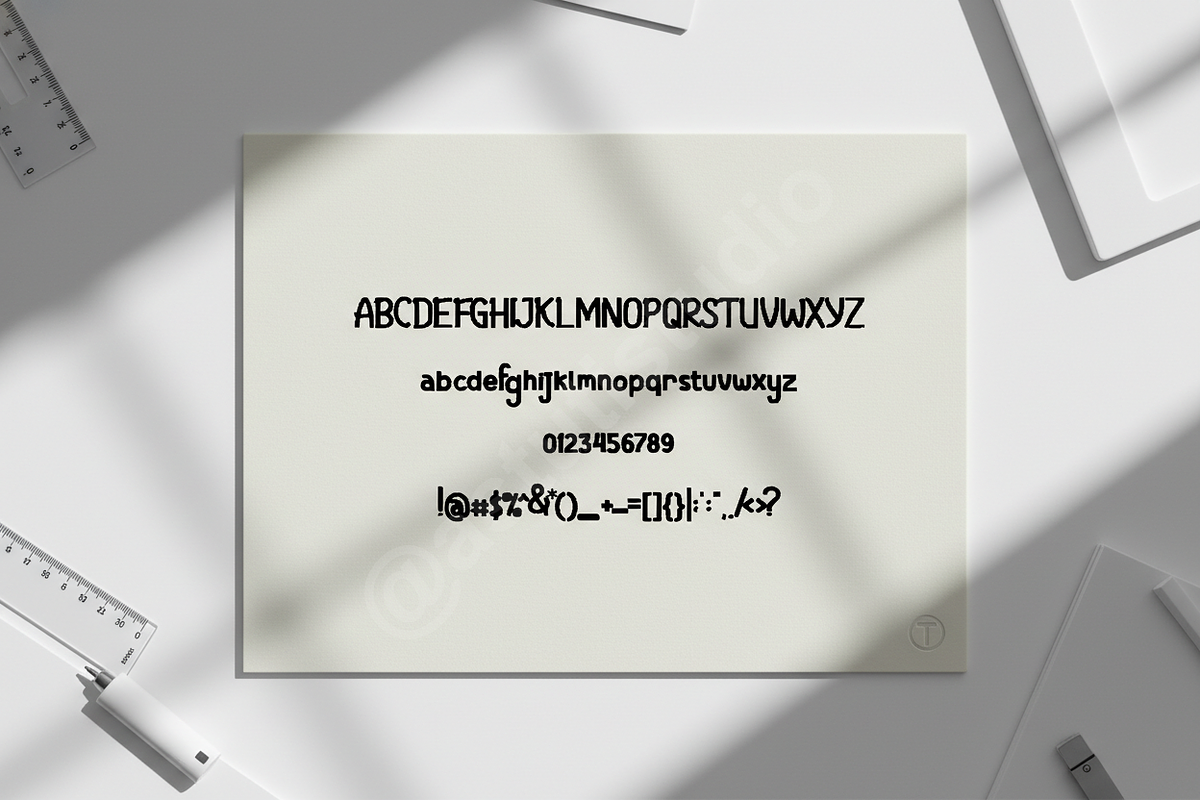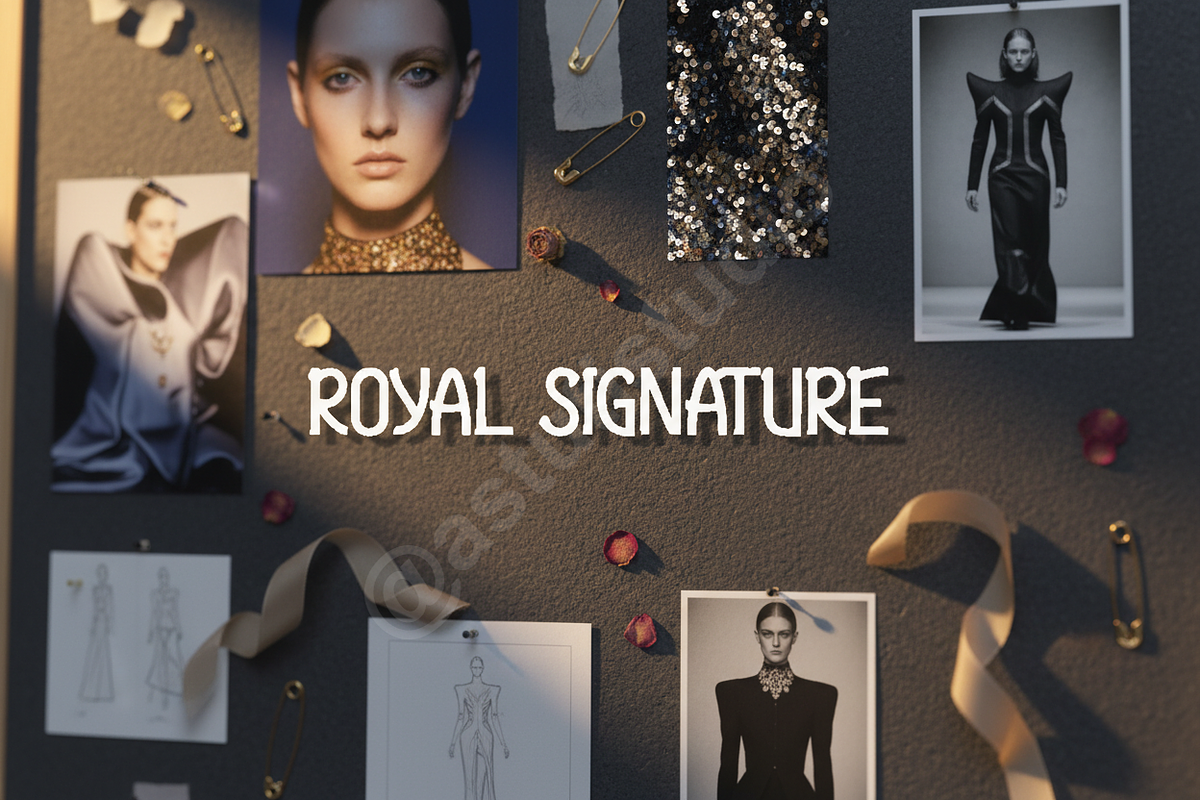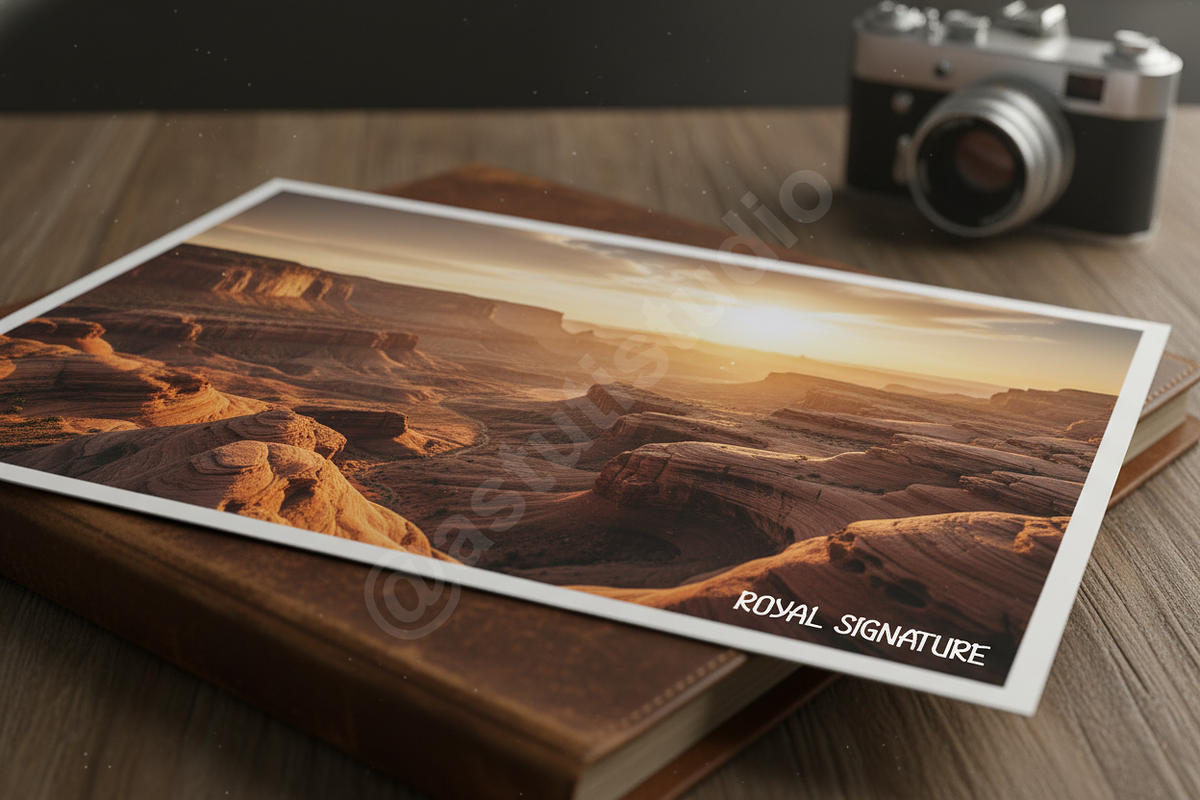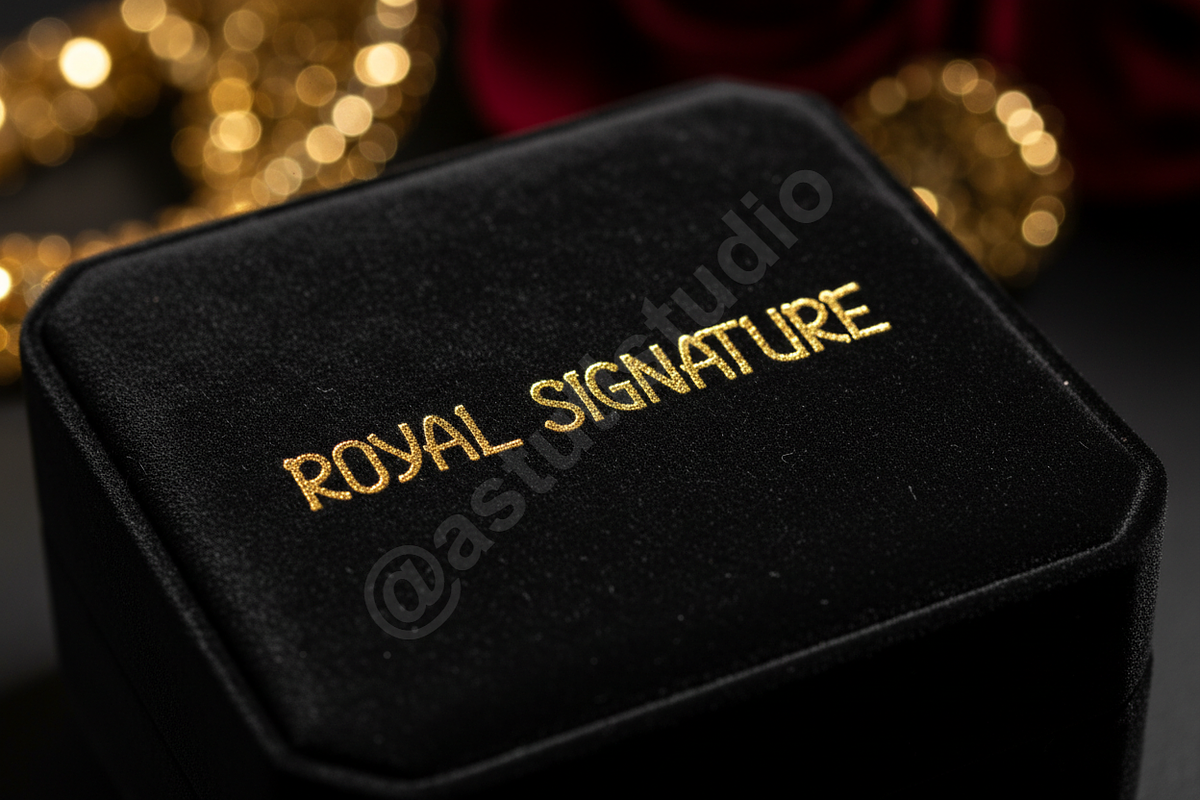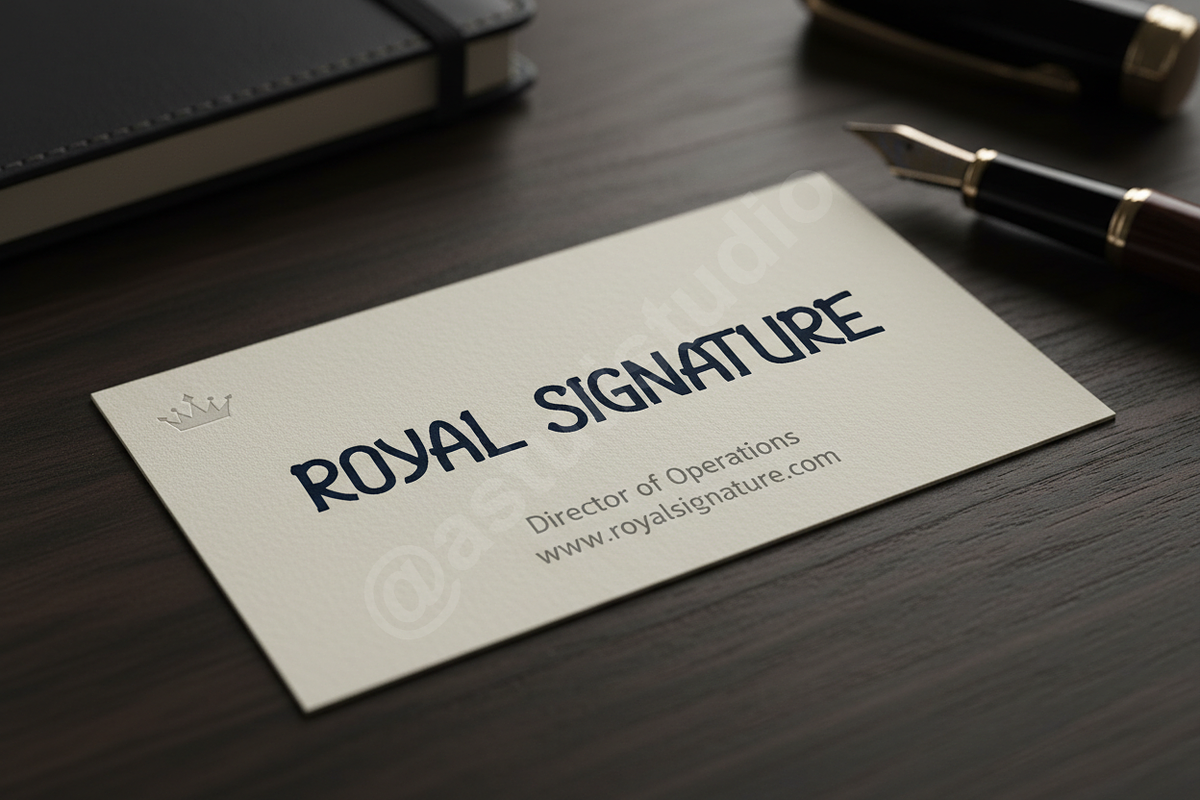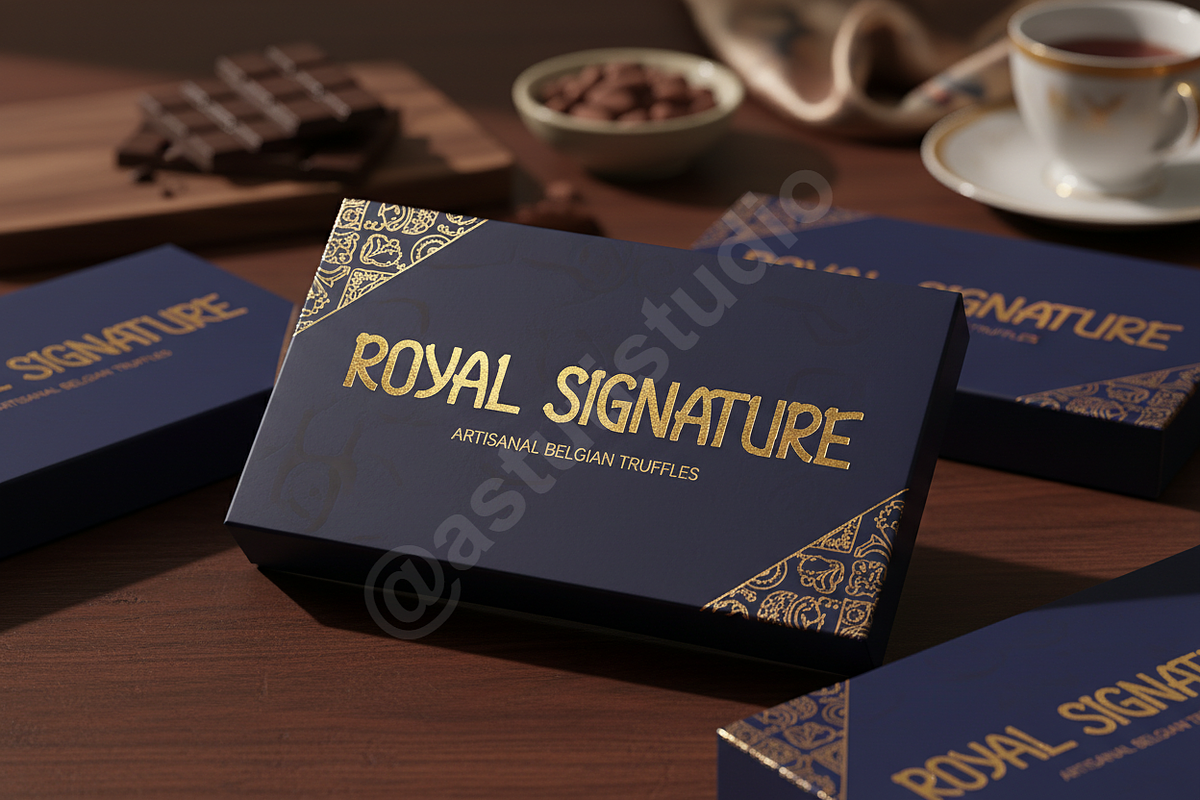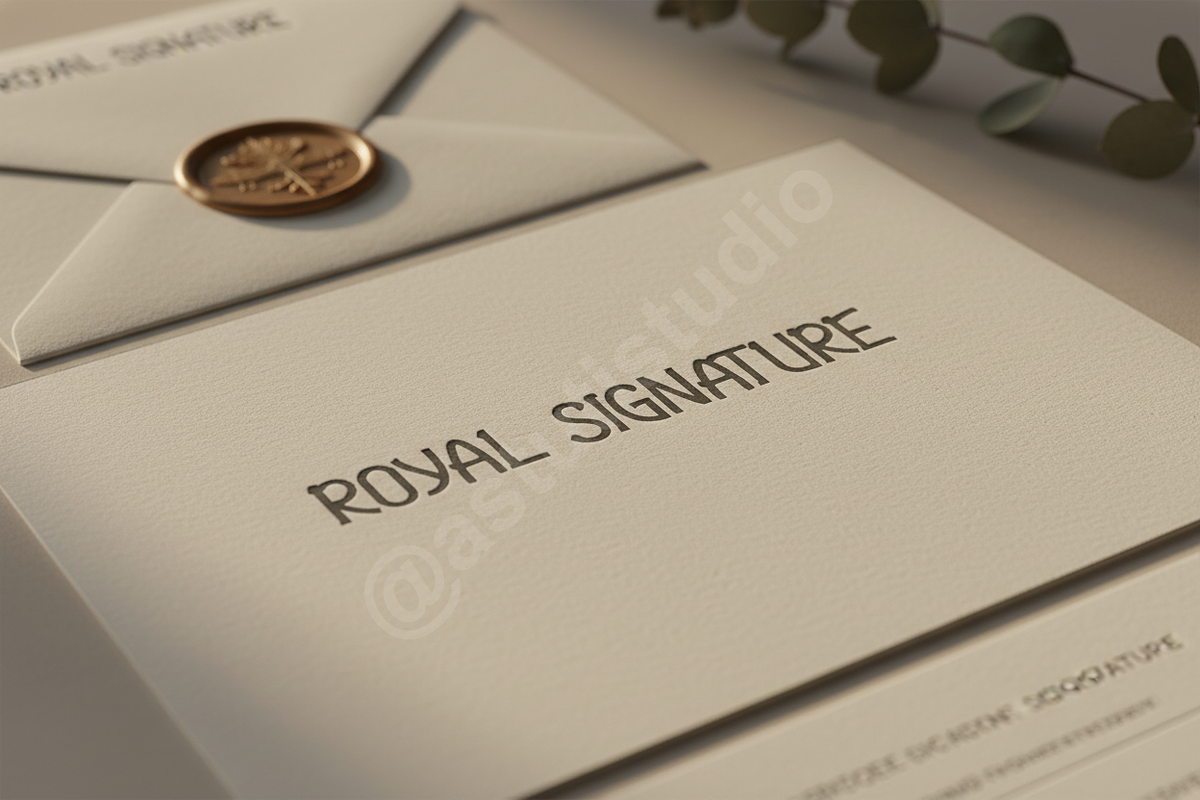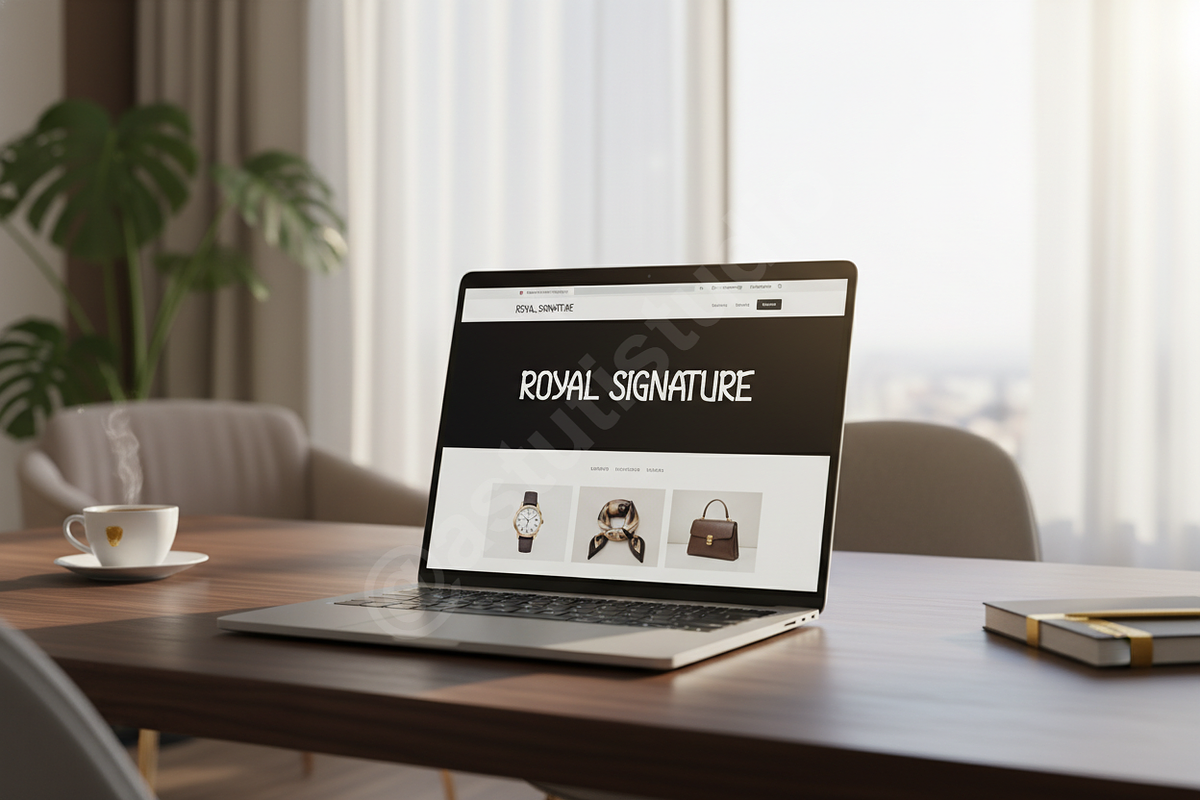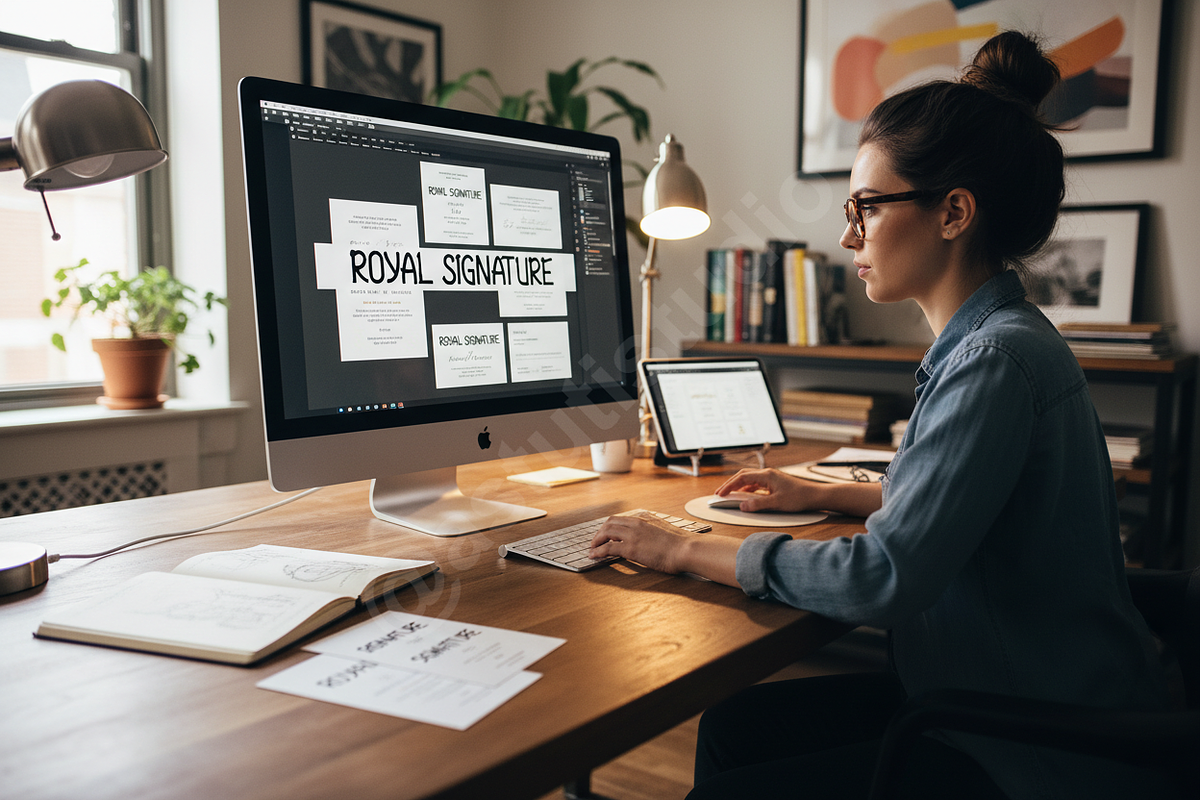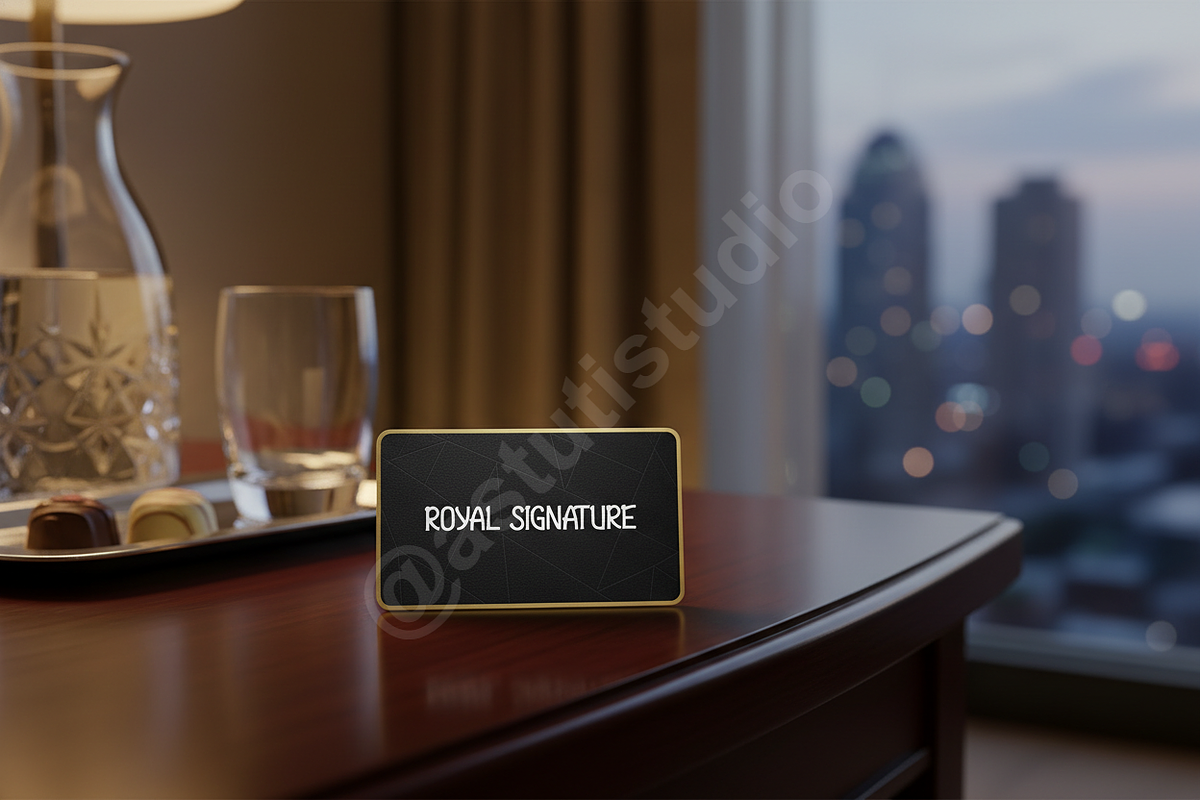
Zulore | Elegant Display Serif for H
Zulore is a refined, high-contrast display serif designed specifically for the world of luxury and sophisticated design. Crafted with meticulous attention to detail, its sharp serifs and subtle, sweeping curves bring an air of exclusivity and timelessness to any project, positioning your brand at the pinnacle of elegance.
Key Features & Application
- Luxury Branding: Perfect for custom logotypes, corporate identity, and packaging that demands attention.
- Editorial Excellence: Optimized high-contrast letterforms ensure impeccable readability in magazine layouts and premium publications.
- Social Media Impact: Creates visually striking quotes and headers optimized for digital platforms.
- Comprehensive Glyph Set: Features extensive discretionary ligatures and stylish alternates for truly unique typographic lockups.
- Multilingual Support: Full support for over 100 languages, ensuring global versatility.
- Full Uppercase & Lowercase Character Sets
- Numerals, Punctuation, and Symbols
- OpenType Features (Ligatures, Alternates)